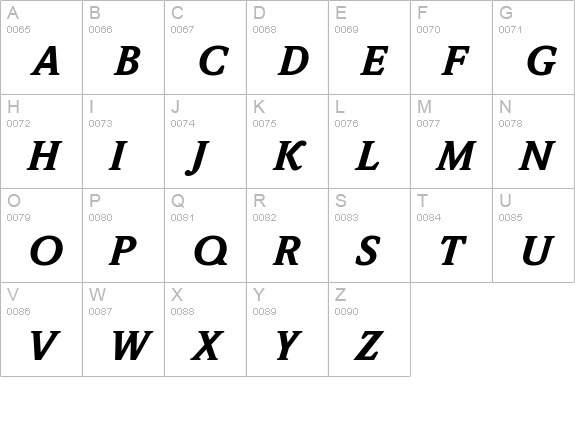
Quintessence Black SSi Black Italic Font Details
Quintessence Black SSi Black Italic is a maximum-weight, dramatic, italic variant in the Quintessence typeface family \xE2\x80\x94 well suited to maximum-impact headlines, posters, and packaging.
Quintessence Black SSi Black Italic font exudes an air of sophistication and elegance. With its sleek and stylish design, this font is perfect for adding a touch of class to any project. The italicized letterforms add a sense of movement and fluidity, making it ideal for conveying a sense of dynamism and energy. This font is the epitome of timeless beauty, with its bold strokes and delicate curves. The deep black color adds depth and intensity, making each character stand out with unparalleled impact. Whether used for headlines, logos, or body text, Quintessence Black SSi Black Italic font commands attention and leaves a lasting impression. One of the best things about Quintessence Black SSi Black Italic font is that it is free. Yes, you read that right! This exquisite font is freely available to download at FontsMarket.com. Now, you can enhance your designs without breaking the bank. It's a win-win situation – you get a high-quality font without spending a dime. So why wait? Elevate your design game with Quintessence Black SSi Black Italic font. Download it for free at FontsMarket.com and let your creativity soar. Whether you're a professional designer or a passionate hobbyist, this font is sure to become a valuable addition to your typographic arsenal. Don't miss out on this incredible opportunity to add a touch of elegance to your projects – get Quintessence Black SSi Black Italic font today!